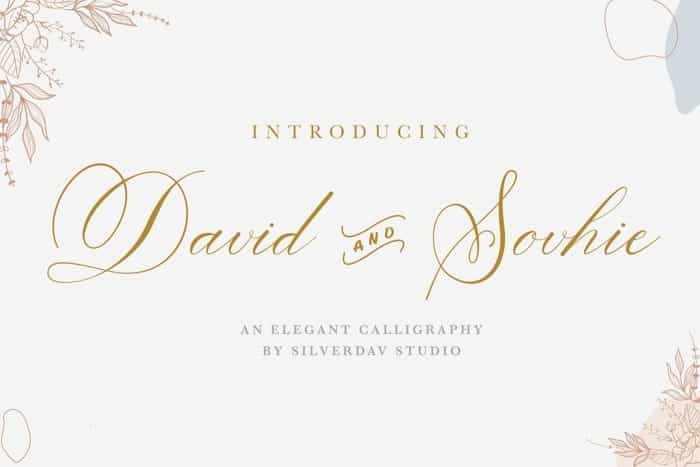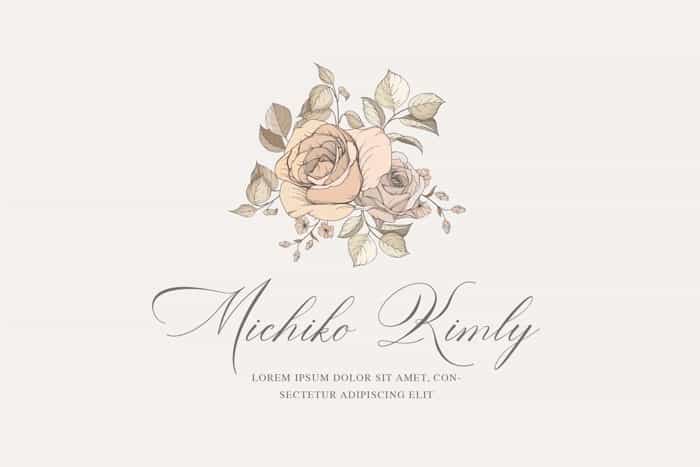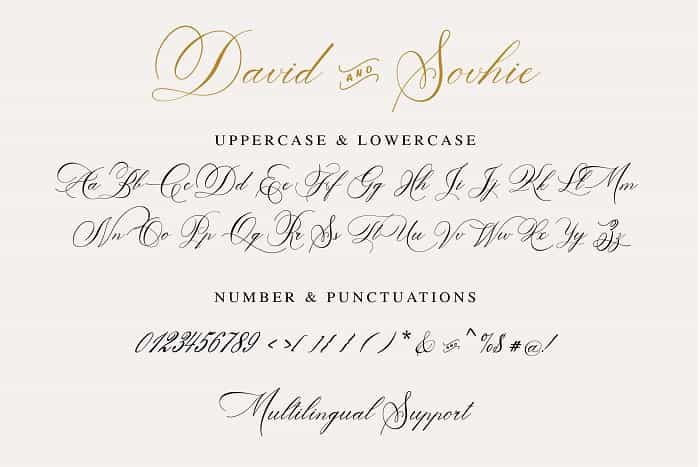
David And Sovhie Font is another lovely modern calligraphy typefaces, which is combining the style of classic calligraphy with an modern style. combines from copperplate to contemporary typeface with a dancing baseline, modern and elegant touch.